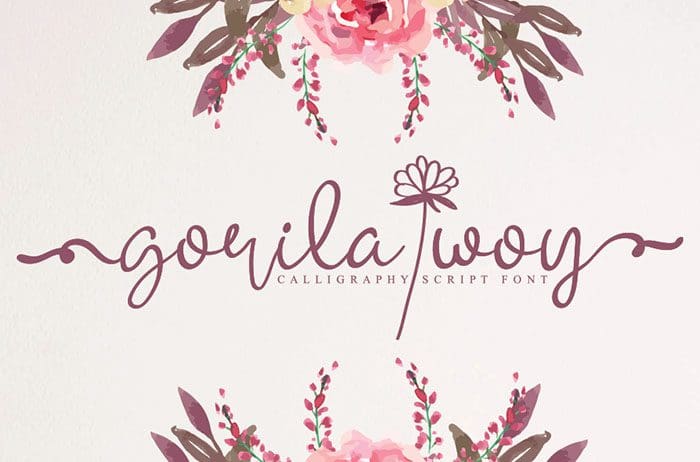
Gorila Woy Calligraphy Font
Gorila Woy Calligraphy Font inspired by classic typography and brings its own unique style to any design project. Use this gorgeous and unique calligraphy font to bring any DIY project to life! Designed this font by Andika Studio. You can also search more freeĀ Calligraphy Fonts.